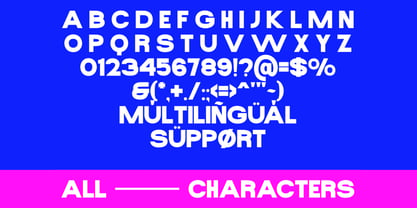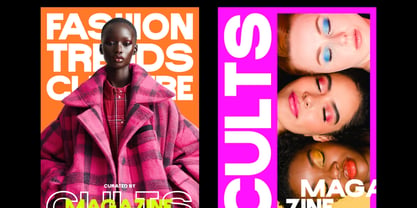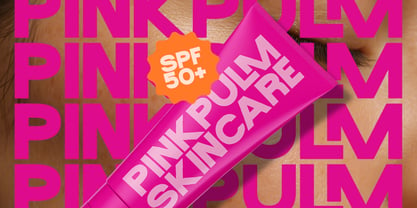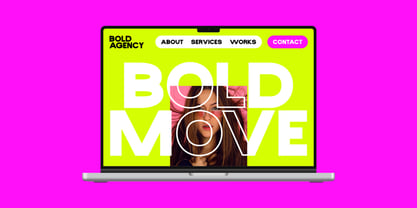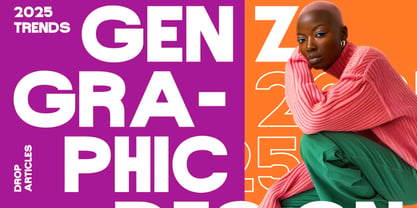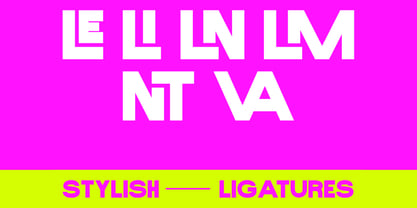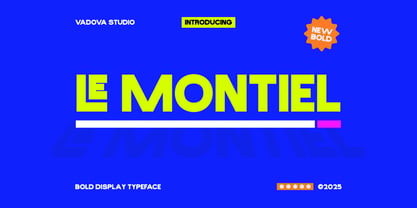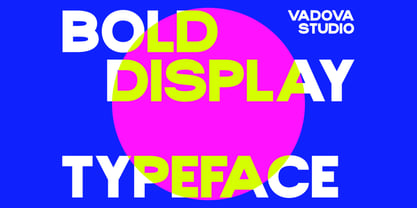
Le Montiel
by Vadova Std
Le Montiel is a high-impact bold display font designed for cutting-edge visuals and powerful branding. Featuring strong uppercase characters, geometric letterforms, and stylistic ligatures, this typeface brings clarity, boldness, and digital flair to any project. The font includes a complete set of multilingual uppercase letters, numbers, punctuation, and sleek ligature combinations for added versatility. Le Montiel is highly relevant for digital creators, designers, and startups aiming for a sleek, modern, and commanding visual impact. Its geometric bold style lends itself naturally to tech branding, UI headers, sports visuals, music event posters, and fashion marketing.